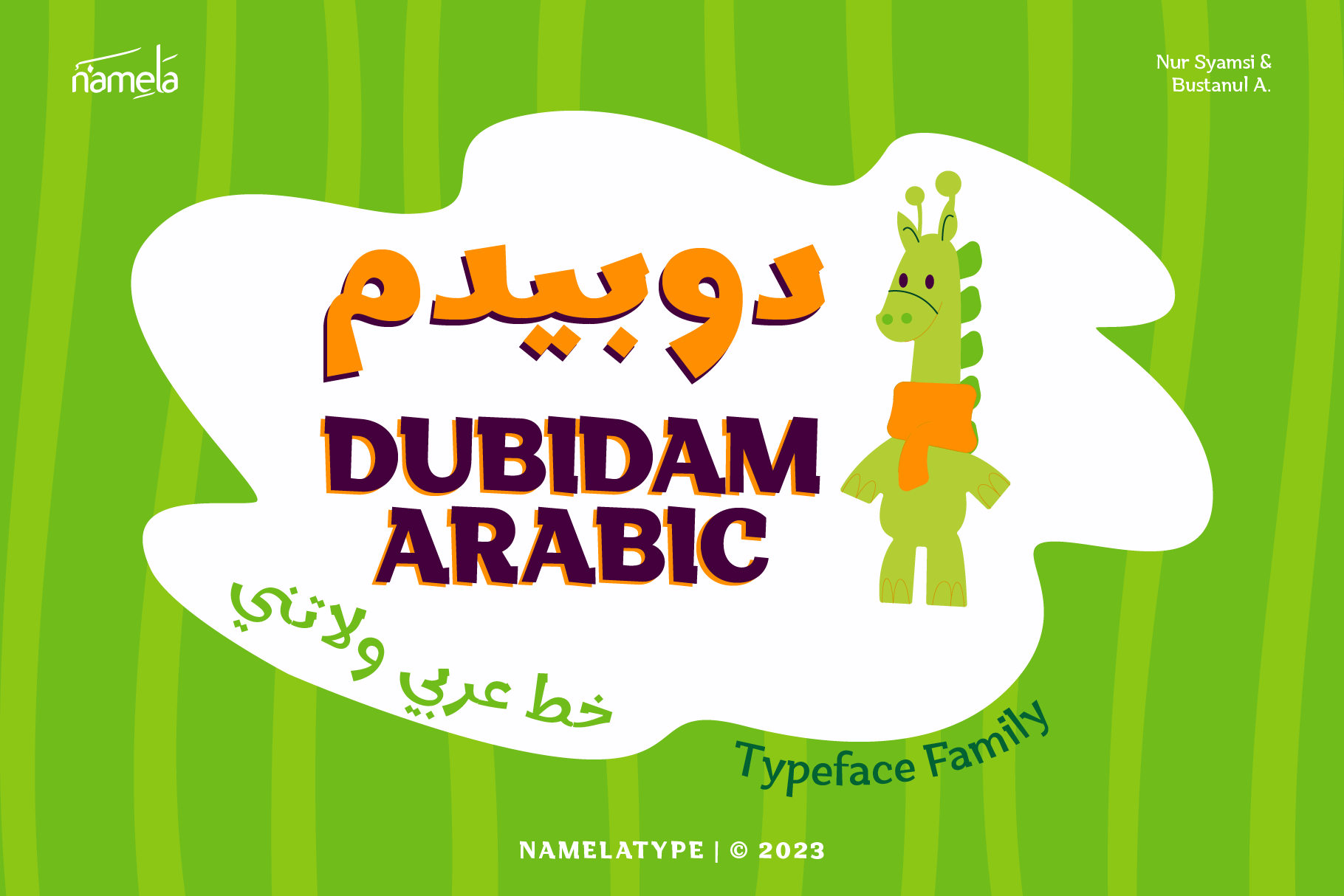
Dubidam Arabic - Fun & Cheerful Font
Dubidam Arabic & Latin font infuses it with the beauty of Arabic script. This cheerful semi-slab typeface retains its playful yet firm style in every stroke, offering a vibrant touch to your designs. Dubidam Arabic comes with a ton of features, including stylistic alternates, standard and discretionary ligatures. Extensive multilingual character support. All effortlessly accessible through OpenType features.
Dubidam Arabic, addition of Arabic glyphs (Arabic, Urdu, Kurdish, Pegon, and Farsi).